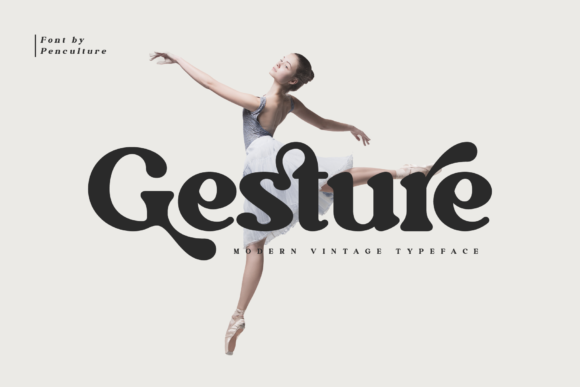
Feast your eyes on Gesture Font, the crown jewel of editorial design, meticulously crafted by the artisans at Pen Culture. This elegant serif font exudes sophistication, meticulously designed to elevate your designs to new heights.
Journey into the world of Gesture Font, where beauty and functionality harmoniously intertwine. Its delicate serifs and flowing curves evoke a sense of timeless elegance, while its sturdy structure ensures clarity and legibility. Whether you're a seasoned designer or just starting your creative journey, Gesture Font is your trusted companion, guiding you towards design excellence.
Indulge in a font that dances across the page, effortlessly capturing the essence of your brand's identity. Gesture Font's versatility knows no bounds, seamlessly adapting to a myriad of projects, from captivating logos and branding initiatives to eye-catching labels and photography. Its presence adds a touch of grace to special events and breathes life into your creative endeavors, transforming them into masterpieces.
Envision your designs adorned with Gesture Font, a font that commands attention without overpowering. Its subtle charm enhances the impact of your words, making them resonate with your audience. Its timeless appeal ensures your creations remain relevant and captivating, transcending the boundaries of time.
Step into the realm of design excellence with Gesture Font. Let your creativity bloom as you explore its endless possibilities. This font is more than just a collection of characters; it's an extension of your creative vision, empowering you to leave an indelible mark on the world.